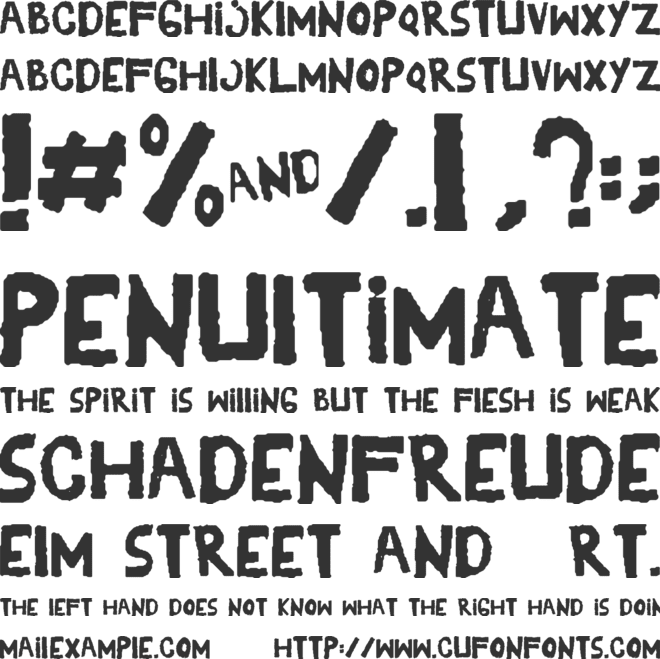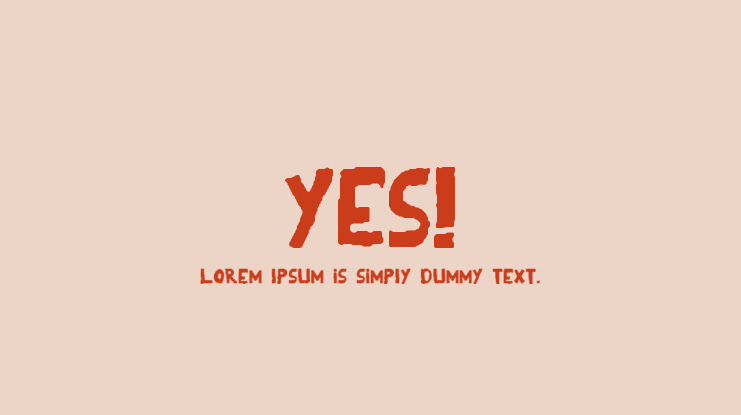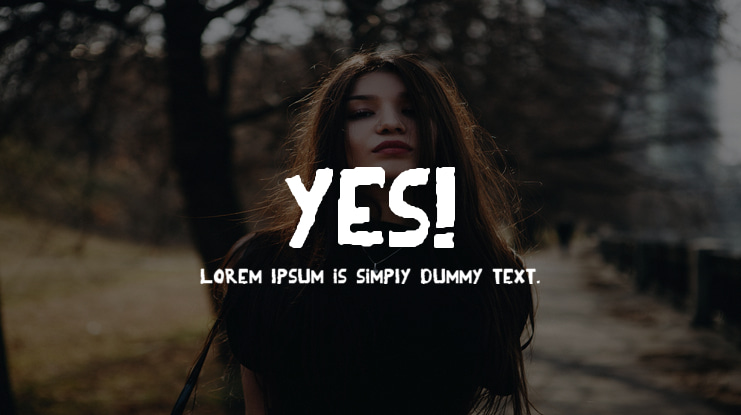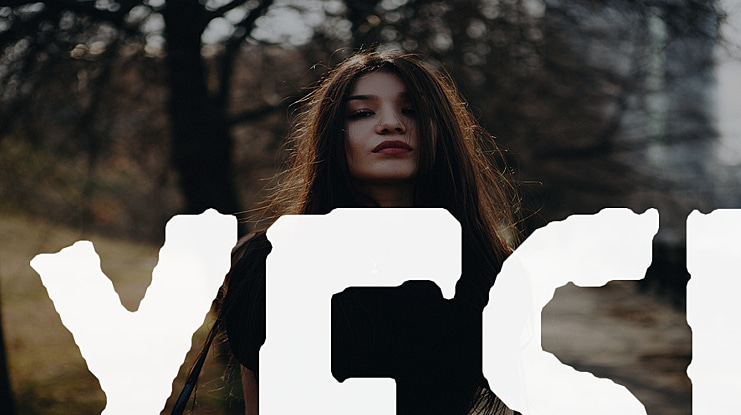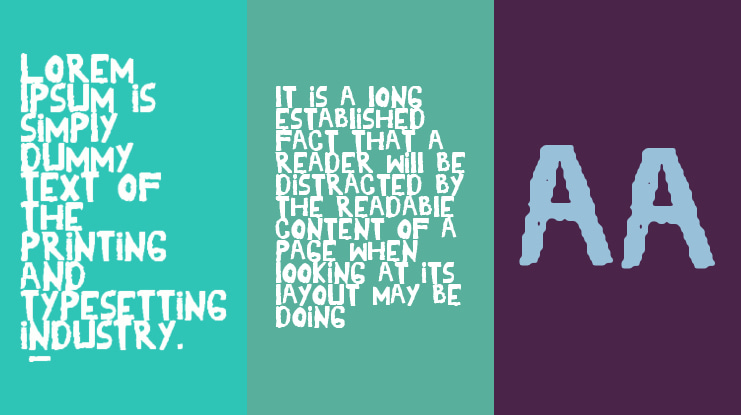
YES! Font
A font inspired by the shirts of WWE superstar Daniel Bryan. No numbers included due to lack of resources.
UPDATE: Now available in 3D, italic, rotated, shaken, outlined, 3D italic, 3D rotated, 3D shaken, outlined italic, outlined rotated and outlined shaken!